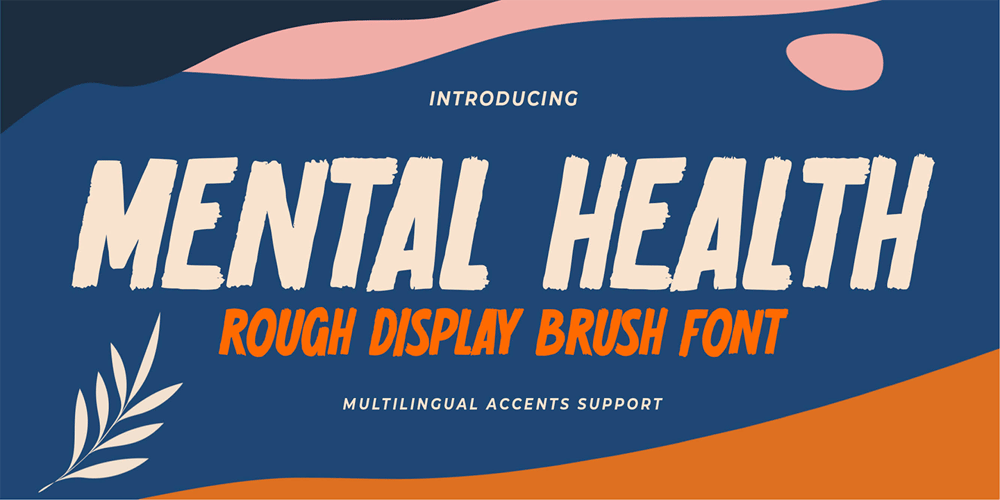
Mental Health Font Family was designed by Abdul Malik Wisnu, Anang Fibriyanto and published by Gassstype. Mental Health contains 1 styles and family package options. Hello Everyone, introduce our new product Font Mental Health is a Rough Display Brush Font.This is a Textured Natural Style and classy style with a clear style and dramatic movement.This font Mental Health is great for your next creative project such as logos, printed quotes, invitations, cards, product packaging, headers, Logotype, Letterhead, Poster, Design this font is great for your creative projects such as watermark on photography, and perfect for logos & branding, invitation,advertisements,product designs, stationery, wedding designs,label ,product packaging, special events or anything that need handwritting taste.You can activate 6 Alternates glyphs OpenType panel.